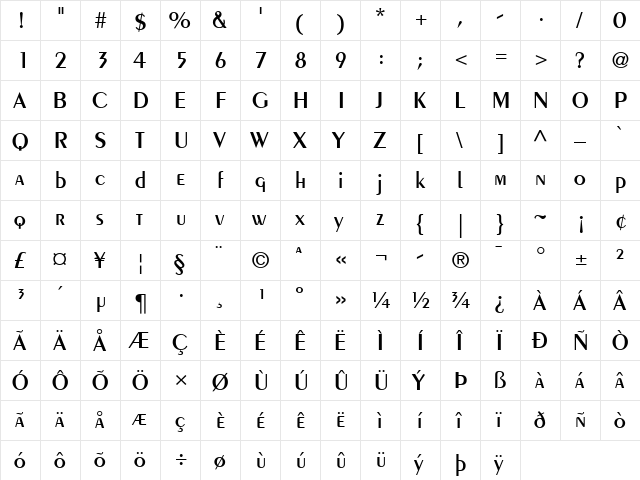
Peignot LT Demi Regular
Design Context for Peignot LT Demi Typeface
Peignot LT Demi offers clean, dependable letterforms without strong stylistic allegiance, making it a practical choice for designers who need flexibility. Its slender proportions lend an understated elegance to any composition.